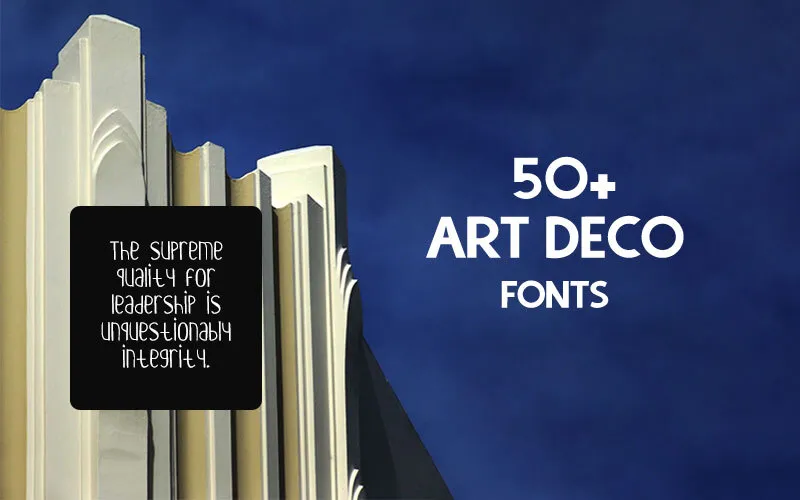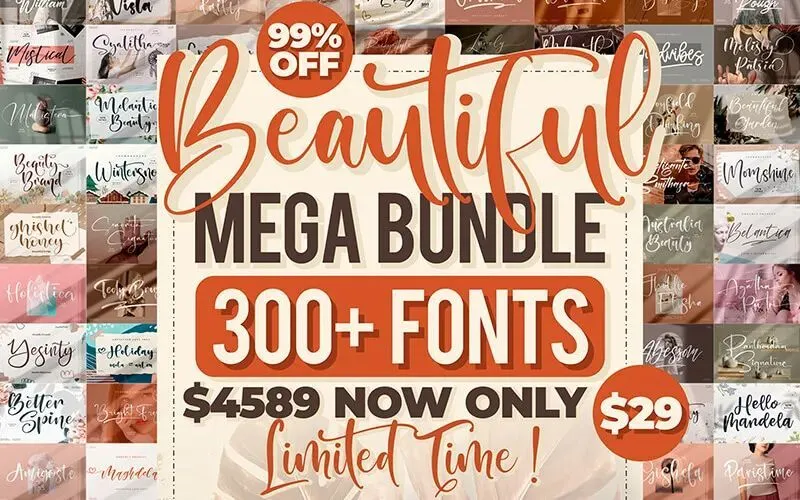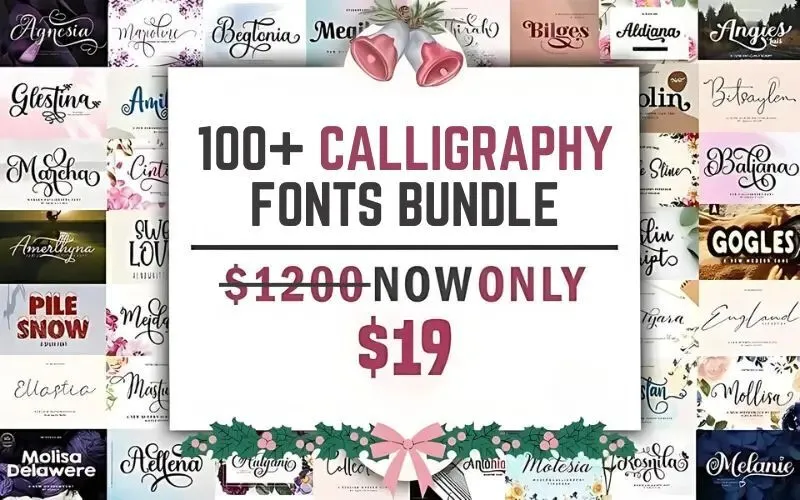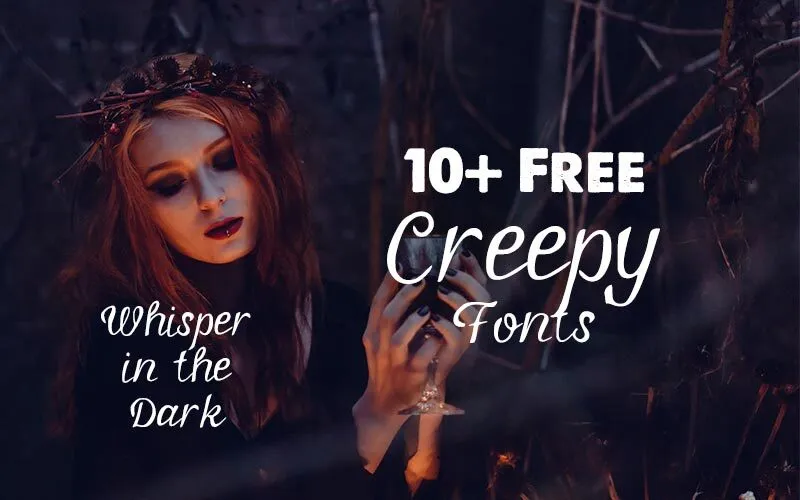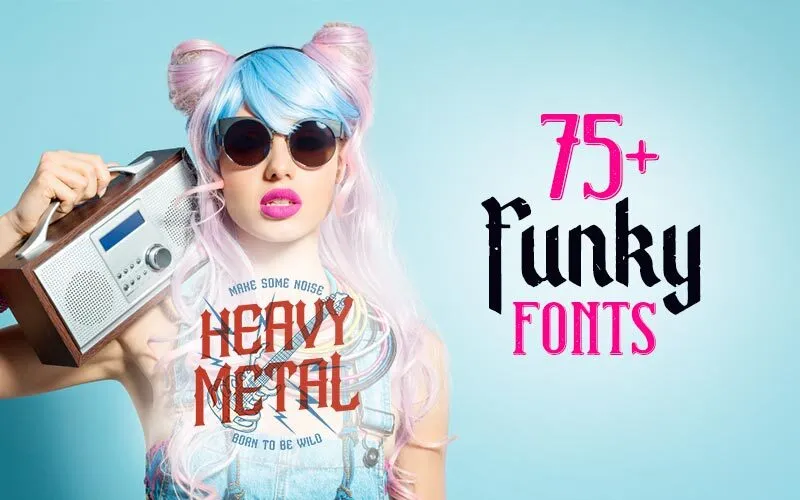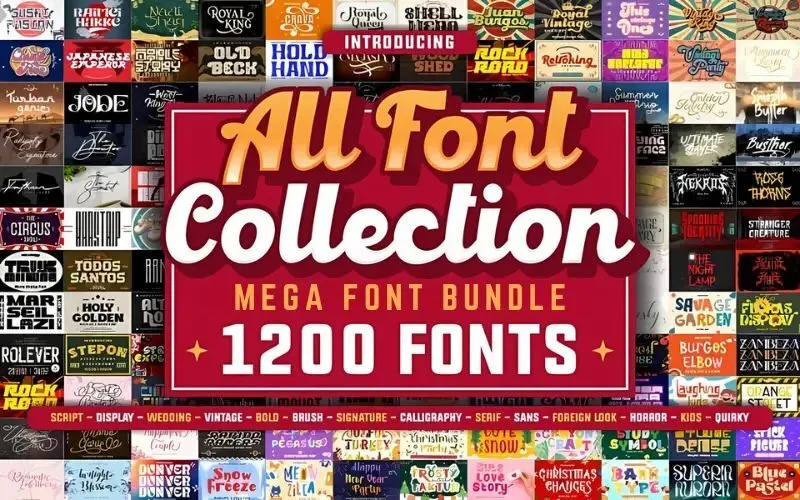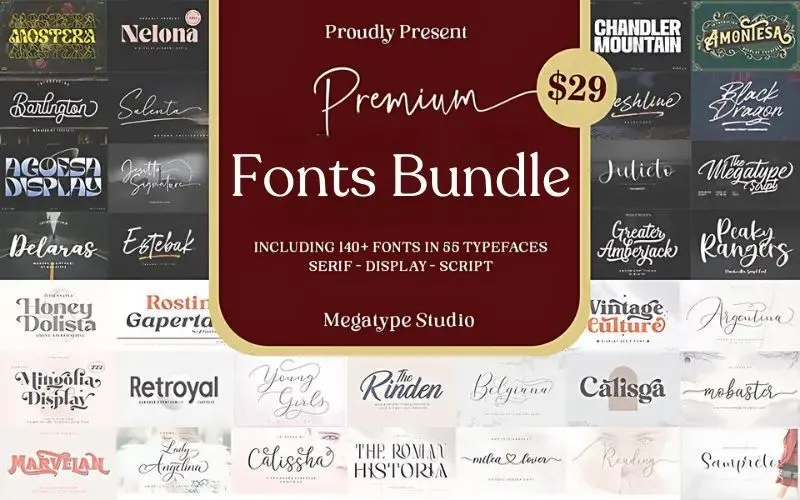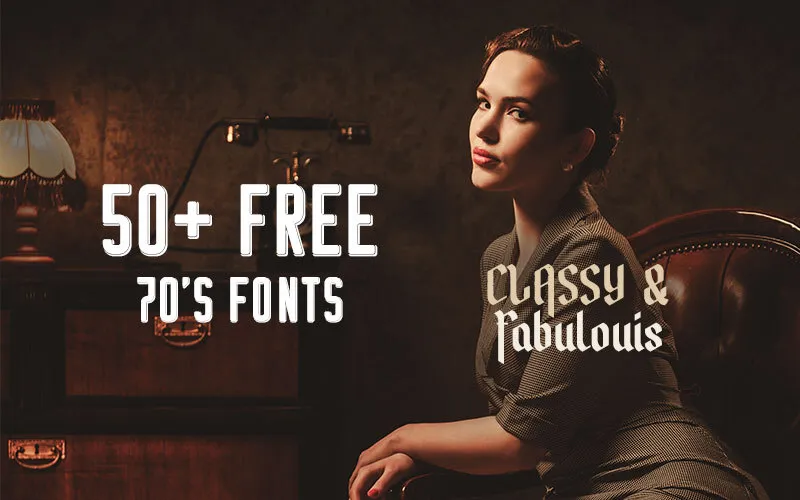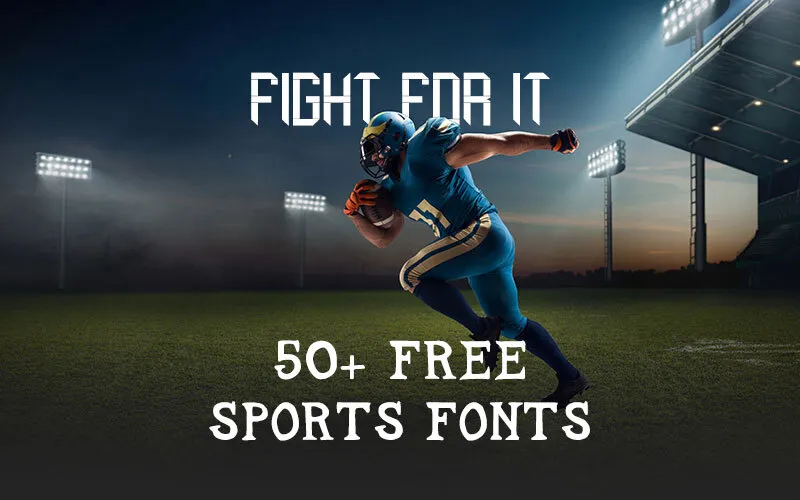
Must-Have Fonts for Designers in 2026
Designs aren’t just about colors and images, but also about the choice of words and how they appear. Fonts are the subtle heroes of every design, quietly shaping how people feel about what they see.
The right font can make a logo timeless, a poster bold, or a presentation easy on the eyes. It’s not about picking a random typeface; it’s about choosing the one that matches your message and adds personality to your work.
Whether you are creating a flyer, website, or campaign, you need fonts that match the message. In this guide, we’ll explore the must-have fonts you need in 2026. But before that, let’s take a closer look at why choosing the right font is so important.
Why Your Font Choice Matters
Every font used in a project helps convey the emotions of a design in a unique way. Clean fonts feel professional, while funky fonts feel playful. Choosing the wrong font can confuse your audience. For example –
• Calligraphy fonts bring elegance to wedding invites, but they may look odd in sports posters.
• Display fonts are the showstoppers, the ones that catch attention instantly.
• Funky fonts grab quick attention and make designs look alive.
• Modern fonts maintain a sharp and minimalist aesthetic, while creating a sleek, futuristic vibe.
Must-Have Fonts for Designers
Beautiful Fonts Bundle , Premium fonts
Want to add life to your dull designs? These breathtaking fonts with stylish, modern typefaces might be the ones you are looking for.
Art deco fonts bundle, display fonts
Want to add a vintage charm to your designs? These bold yet elegant in style fonts are the end of your perfect font quest. And guess what they cost you? Absolutely nothing.
Premium fonts bundle
Looking for premium fonts that elevate any project with class and style? This prestigious collection of fonts that support multiple languages is a must-see.
Sports fonts bundle , modern fonts
Add energy to your sports branding with these strong fonts that demand attention, without spending a single penny.
Free Creepy fonts bundle , halloween fonts
Grab these fonts, perfect to add a spooky & mysterious vibe to your designs. Great for Halloween projects, these fonts will attract your audience rather than scaring them away.
Calligraphy Fonts Bundle
On a hunt for perfect calligraphy fonts that add elegance to invitations and brand logos? This font bundle might be the end of your search.
Seventy's fonts bundle , vintage fonts
This is a collection of 70s fonts, both classy and fabulous. These simple yet versatile fonts are a must-have for basic and creative projects.
Mega Fonts Bundle, Premium fonts
This ginormous pack is a collection of fonts of every mood, professional fonts, funky fonts, and casual fonts.
Funky Fonts bundle
The struggle for Funky fonts that bring life and fun to creative layouts is now over. With this collection of multiple playful fonts, you can add life to any design.
Popular Modern Fonts Bundle Feature Image
Conclusion
Fonts are not just text styles; they are voices to your design and creativity. Choosing fonts wisely helps you stand out & connect better with your audience.
Typography may look like a small detail, but it’s often what people notice first. A good font makes your work easy to read and memorable, while the wrong one can confuse or distract your audience.
Every typeface has a role to play in design. The key is matching the font with the story you’re trying to tell. Keep it simple, keep it readable, and don’t be afraid to try something new.
In the end, fonts aren’t just design choices, they’re voices. Choose the one that speaks for your work.